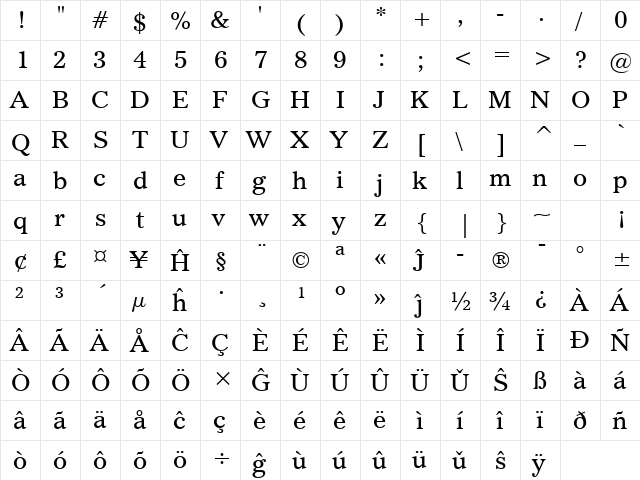
Imperial Eo Roman
Design Context for Imperial Eo Typeface
Imperial Eo is a composed and adaptable typeface that performs quietly and consistently across a wide range of design contexts.